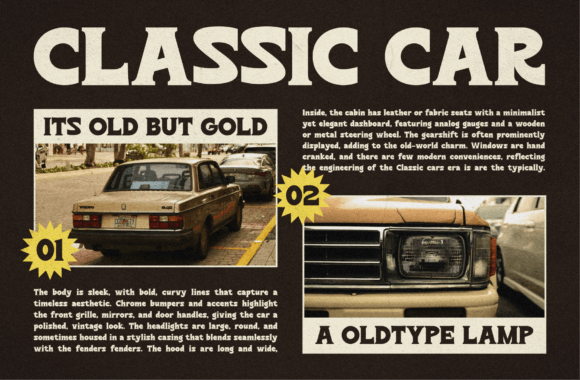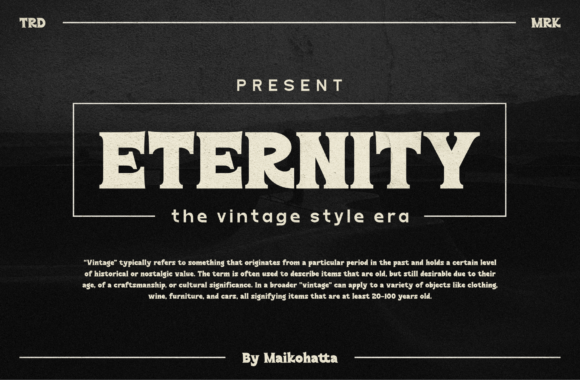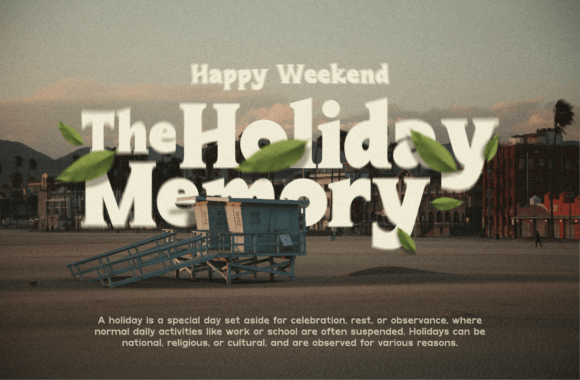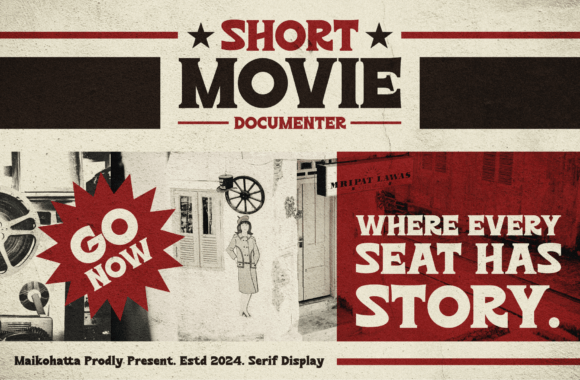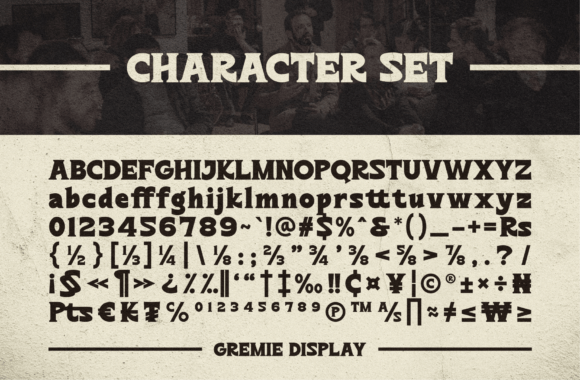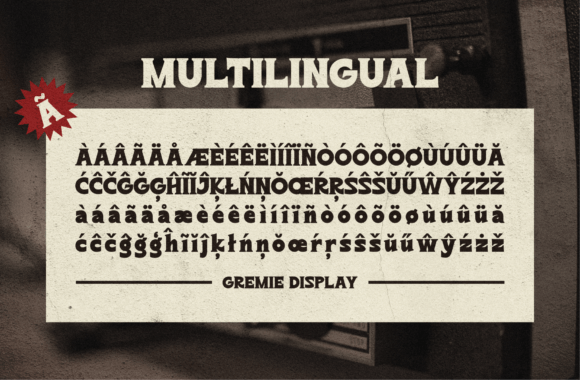
Introducing Gremie Font: Elevate Your Designs with Bold Serif Elegance
In the world of typography, the right font can make all the difference in elevating your design from ordinary to extraordinary. We’re excited to introduce Gremie, a bold serif display font that embodies the perfect balance of stroke thickness and fineness, creating visually stunning and easy-to-read text. With its modern serif style and distinctive character, Gremie is poised to become a favorite among designers and crafters looking to add a touch of sophistication to their projects.
The Art of Bold Serif Typography
Gremie font is a masterclass in bold serif typography, characterized by a bold distinction between thick and thin lines. This classic style is often associated with luxury, elegance, and refinement, making it perfect for designs that require a level of sophistication. The bold serifs provide a sense of stability and reliability, while the contrasting line weights add a touch of dynamism and flair. Whether you’re designing a logo, heading, or title, Gremie font is sure to make a lasting impression.
Key Features of Gremie Font
- Balanced Proportion: Gremie font boasts a carefully crafted balance of stroke thickness and fineness, creating a harmonious visual experience.
- Modern Serif Style: With its clean lines and classic serifs, Gremie font brings a touch of modernity to traditional typography.
- Easy-to-Read: The font’s clear and legible design ensures that your message is conveyed with clarity and precision.
- Bold and Elegant: Gremie’s bold serifs and contrasting line weights create a sense of drama and sophistication.
Why Choose Gremie Font?
With so many fonts available, why choose Gremie? Here are just a few reasons why designers and crafters are falling in love with this versatile font:
- Versatility: Gremie font can be used in a wide range of applications, from headings and titles to logos and branding.
- Uniqueness: Gremie’s distinctive character sets it apart from more traditional serif fonts, ensuring your design stands out from the crowd.
- Ease of Use: With its clear and legible design, Gremie font is perfect for designs that require a high level of readability.
Design Inspiration with Gremie Font
To give you a sense of the creative possibilities with Gremie font, here are a few design ideas to get you started:
- Luxury Branding: Use Gremie font to create a sophisticated brand identity that exudes elegance and refinement.
- Editorial Design: Gremie font is perfect for headings and titles in editorial design, adding a touch of drama and flair to your publication.
- Packaging Design: Make a statement with Gremie font on product packaging, creating a bold and eye-catching design that stands out on store shelves.
In conclusion, Gremie font is a bold serif display font that offers a unique blend of elegance, sophistication, and versatility. With its balanced proportion, modern serif style, and easy-to-read design, Gremie is the perfect choice for designers and crafters looking to elevate their designs. Whether you’re working on a luxury brand identity, editorial design, or packaging design, Gremie font is sure to make a lasting impression.
Get Ready to Elevate Your Designs with Gremie Font